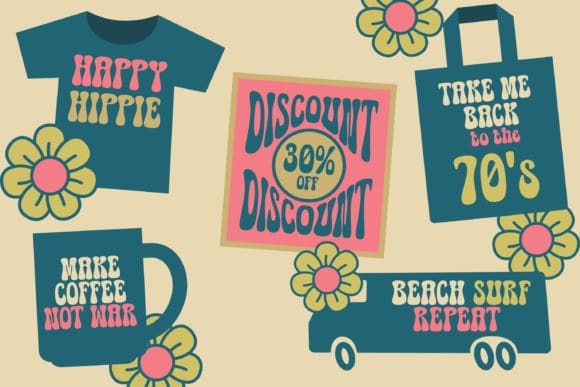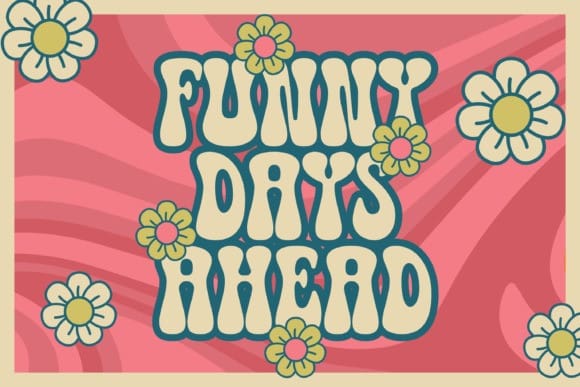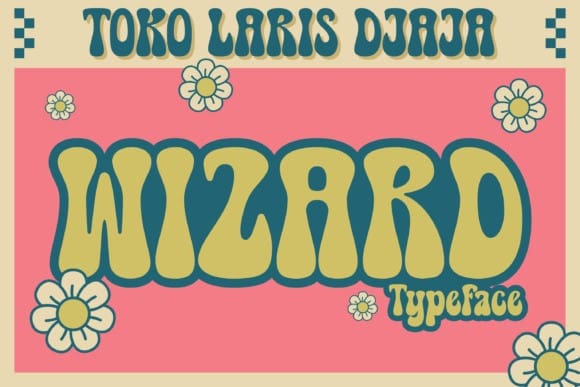
Wizard Retro Font
Wizard Retro Font is a retro font with vintage, groovy and fun vibes, inspired by retro bold typography. Wizard feels playfully nostalgic and delivers an incredible vintage retro aesthetic. This font is perfect for a design that requires a playful and fun accent. Wizard is suitable for book covers, posters, packaging, merchandise, logotype, font logo, sticker and much more. Use this display font to add that special retro touch to any design idea you can think of!